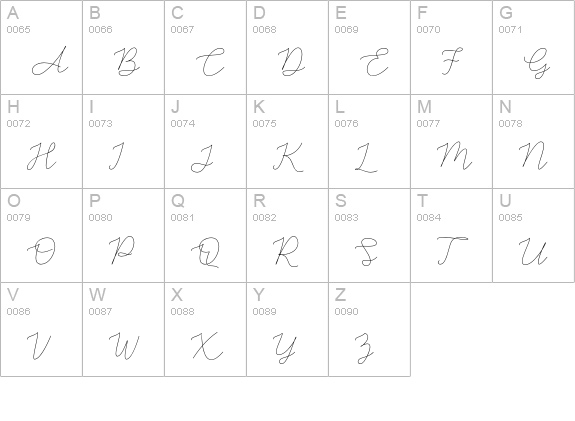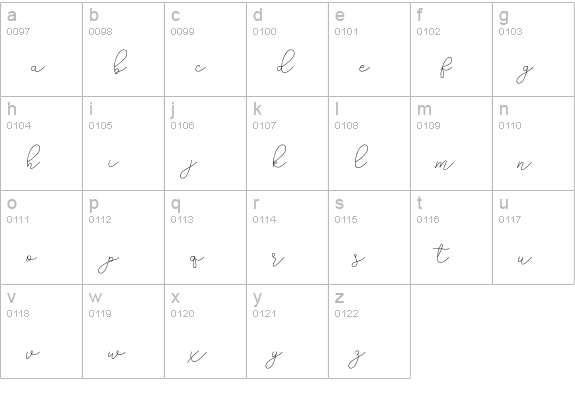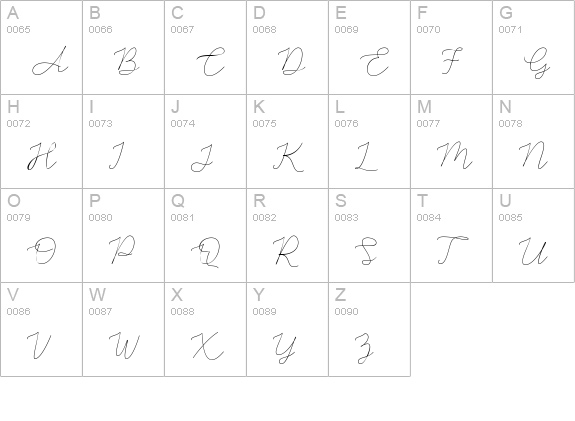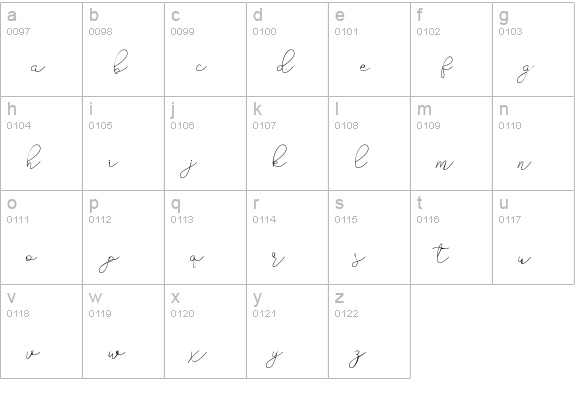
Adelya Font Details
Adelya is a demo font in the Script > Calligraphy category, designed by craftsupplyco. It has been downloaded 54 times and is available for Windows, Mac and Linux.
Introducing Adelya font, a stunning typeface that combines elegance and modernity in perfect harmony. With its sleek lines and sophisticated curves, Adelya is perfect for adding a touch of class to any design project. This versatile font is ideal for everything from invitations to logos to packaging.